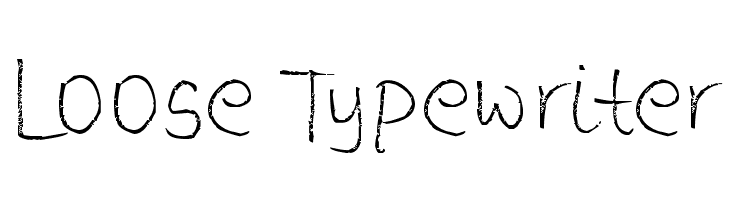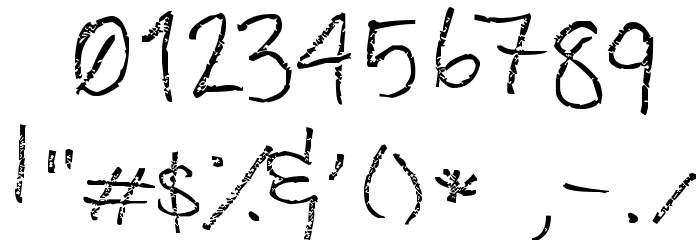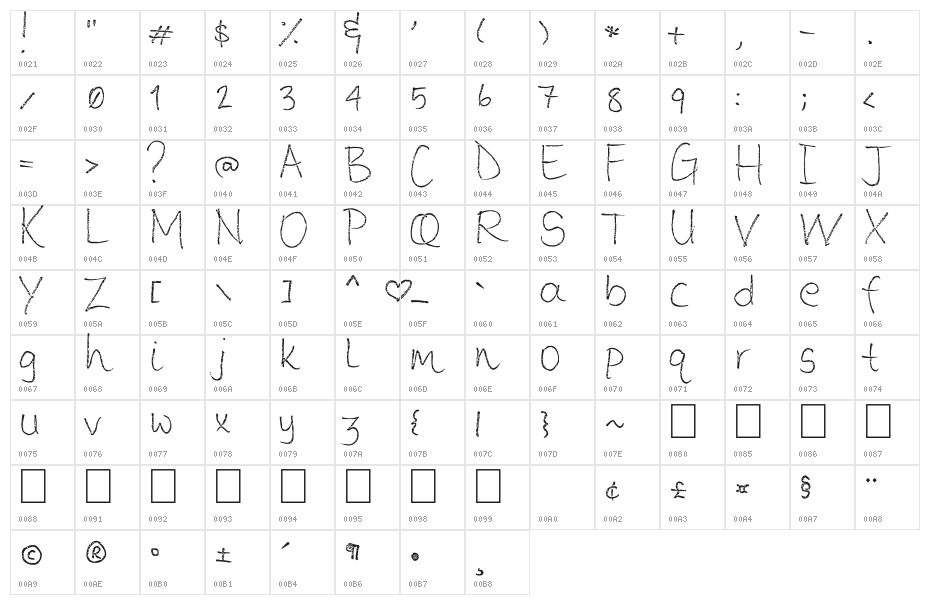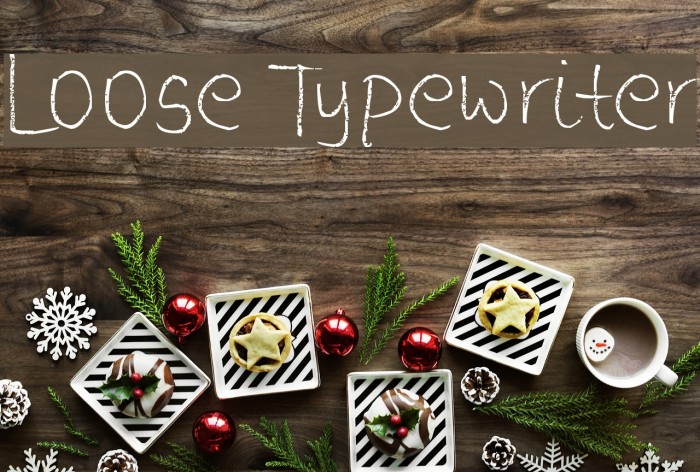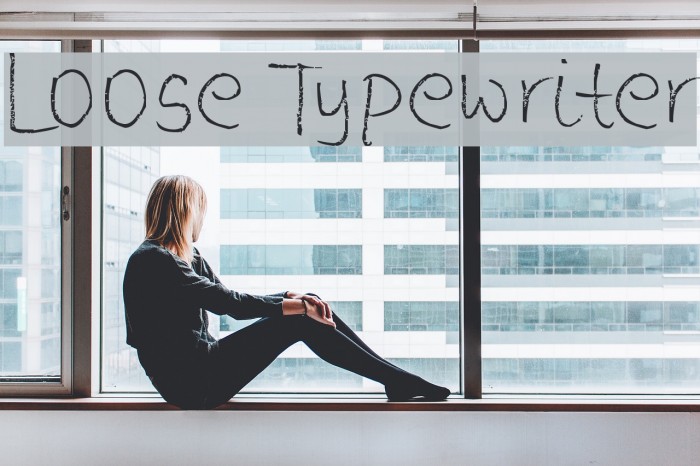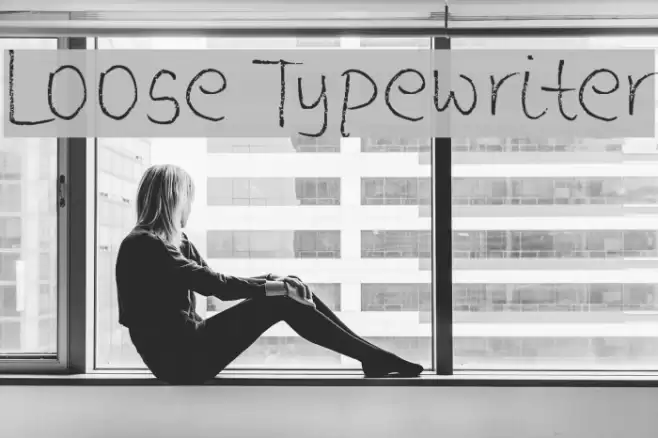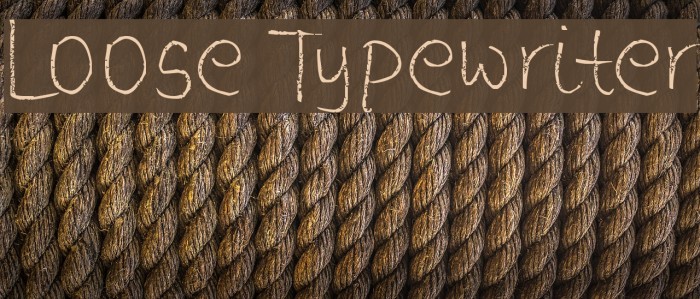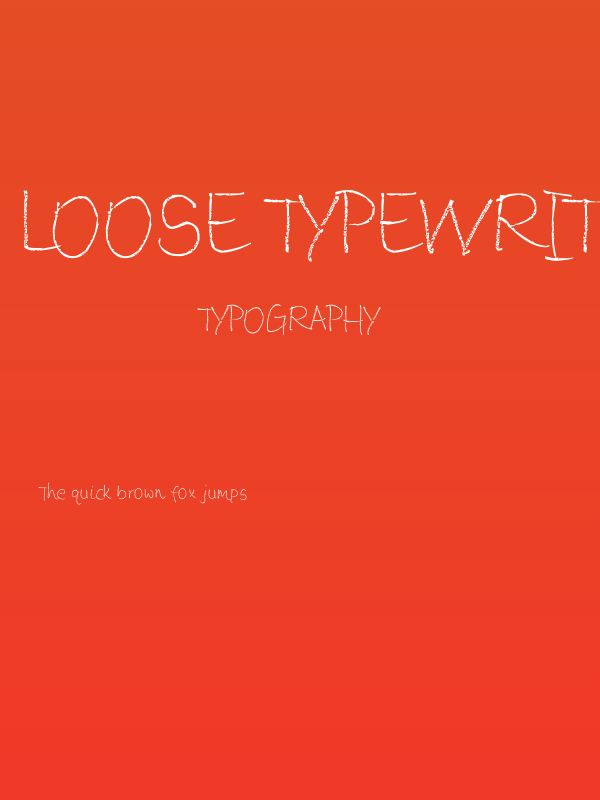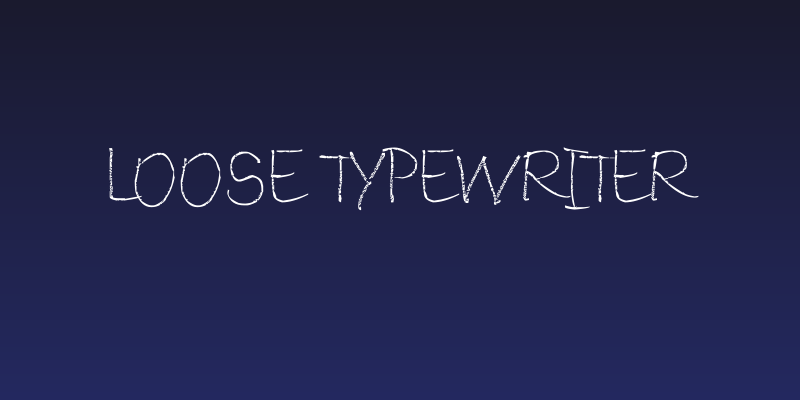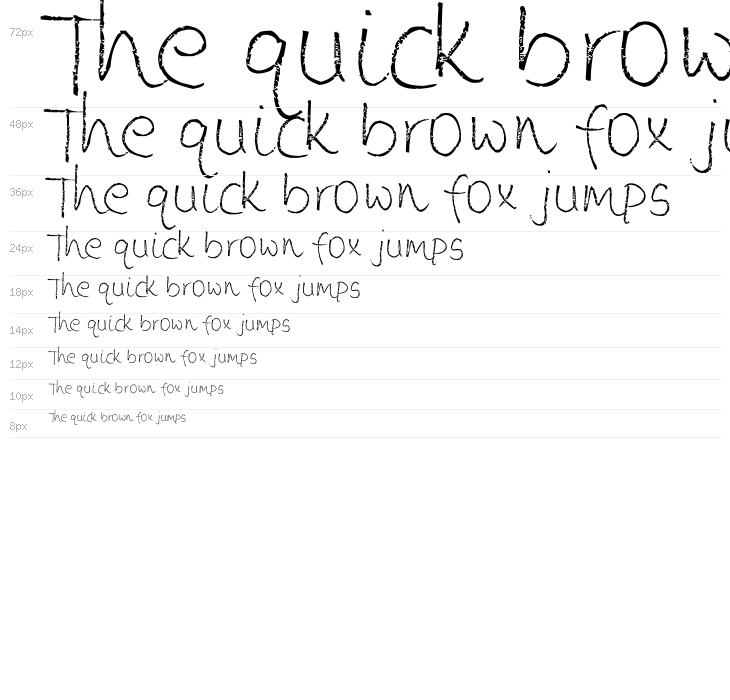
Loose Typewriter Font
Loose Typewriter Description
This font exudes a casual, handwritten style with a textured, distressed appearance that mimics the look of ink on paper. The characters are slightly irregular, adding to the organic and authentic feel. Uppercase and lowercase letters maintain a consistent style, with rounded edges and a playful, informal vibe. The numerals and special characters follow the same aesthetic, ensuring a cohesive look across all text. This font is ideal for projects that require a personal touch, such as invitations, greeting cards, or artistic designs. Its unique texture and style make it stand out, providing a distinctive character to any project.
| Use Case | Headlines, Artistic designs |
| Proposed Projects | Ideal for invitations, greeting cards, artistic designs, and any project needing a personal touch. |